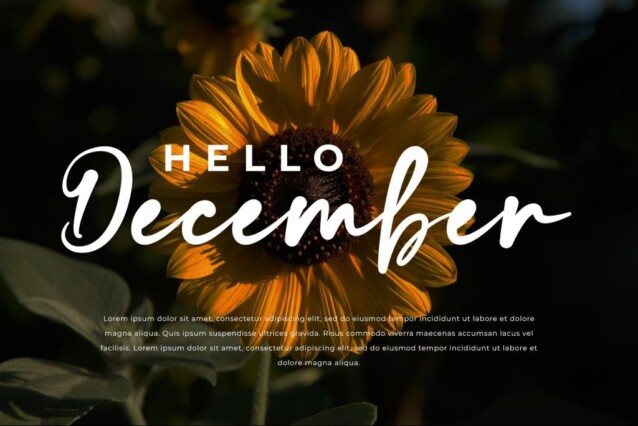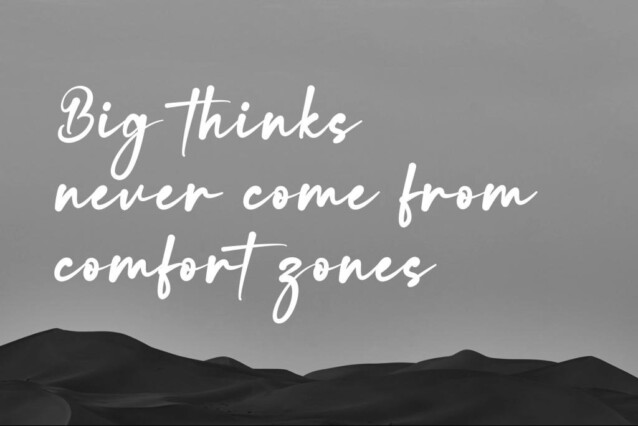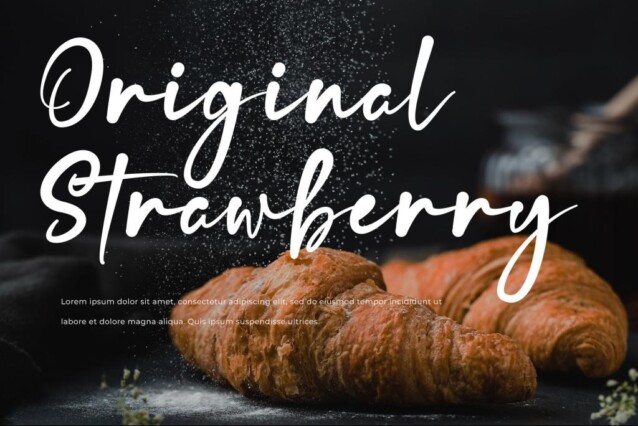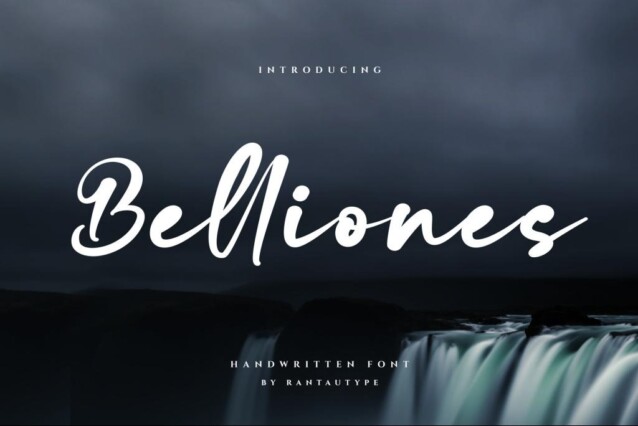
Belliones Font
Belliones Font is a magical script font carefully created with a touch of elegance. It is great for making logotypes, branding, promotional ads, quotes, packaging, t-shirt designs, merchandise, posters, social media posts, and much more. Belliones is here to take your projects to the highest levels!